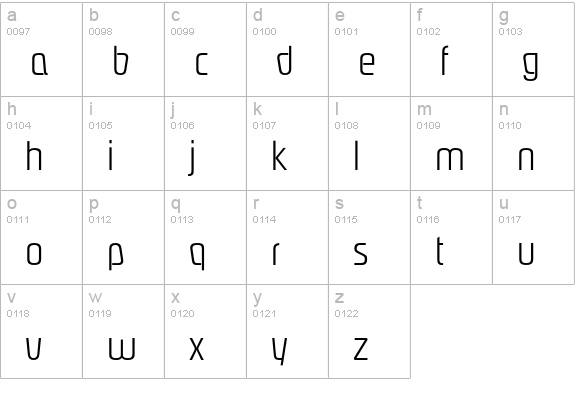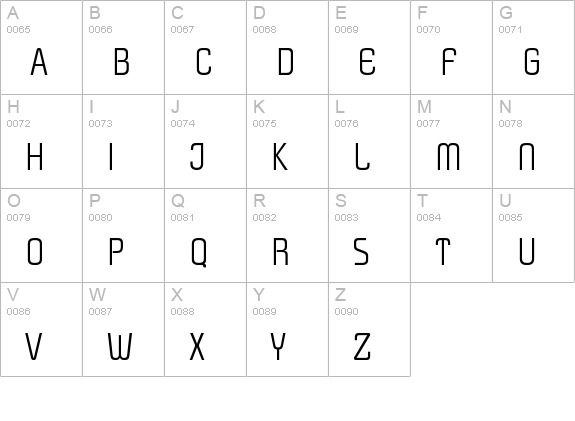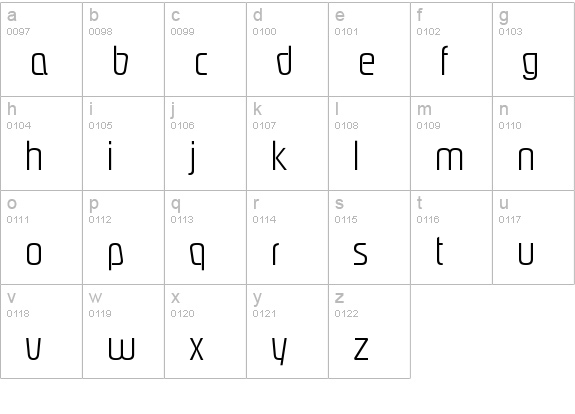
PasadenaEF-Light is a refined, elegant variant in the PasadenaEF typeface family \xE2\x80\x94 well suited to elegant body text, refined sub-headings, and luxury branding.
PasadenaEF-Light font is a beautifully crafted typeface that exudes elegance and sophistication. With its delicate curves and graceful letterforms, this font is perfect for adding a touch of refinement to any design project. What sets PasadenaEF-Light font apart is that it is freely available to download at FontsMarket.com. This means that you can easily access this stunning font without any cost, allowing you to enhance your creations without breaking the bank. Whether you're designing a logo, creating a stunning website, or crafting a visually captivating poster, PasadenaEF-Light font will add a touch of class and professionalism to your work. Its slim and slender strokes bring a sense of lightness and delicacy, making it ideal for both digital and print designs. The versatility of PasadenaEF-Light font is truly remarkable. It can effortlessly adapt to various design styles, from modern and minimalist to classic and timeless. Its legibility and clarity ensure that your message will be communicated effectively, no matter the context. With its freely available download at FontsMarket.com, PasadenaEF-Light font offers accessibility and convenience to designers and creatives from all walks of life. So why wait? Take advantage of this amazing opportunity to elevate your designs with this exceptional font. Download PasadenaEF-Light font today and unlock a world of possibilities for your projects.